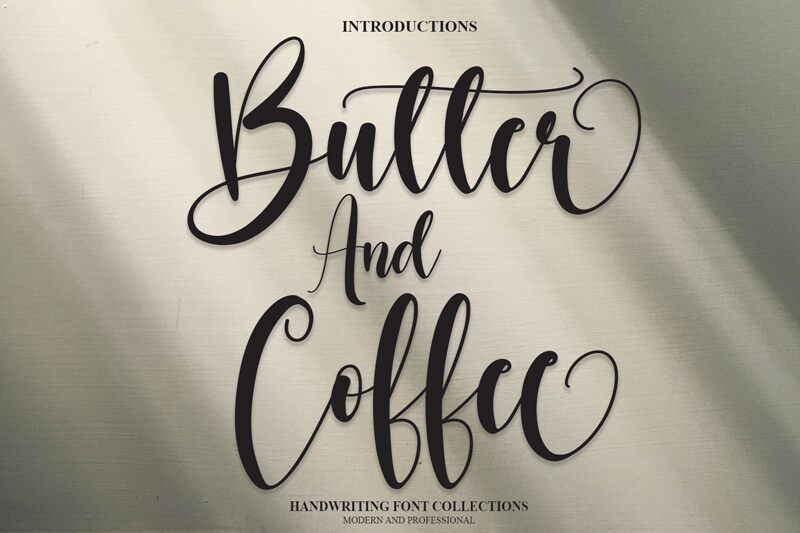
Butter And Coffee
Butter And Coffee is a beautifully crafted calligraphy font by scratchones. Its semi-light weight and condensed width make it perfect for creating elegant designs that require a touch of sophistication. This font can be used in a variety of projects, such as wedding invitations, branding materials, and social media graphics. Butter And Coffee exudes a sense of warmth and comfort, making it an ideal choice for projects that aim to create a cozy atmosphere. With its unique style and graceful curves, this font is sure to elevate any design project to new heights.
the latest style letters are perfect for wall displays, wedding invitations, social media post logos, advertisements, product packaging, product designs, labels, photography, watermarks, invitations, stationery, and any project that requires taste handwriting.